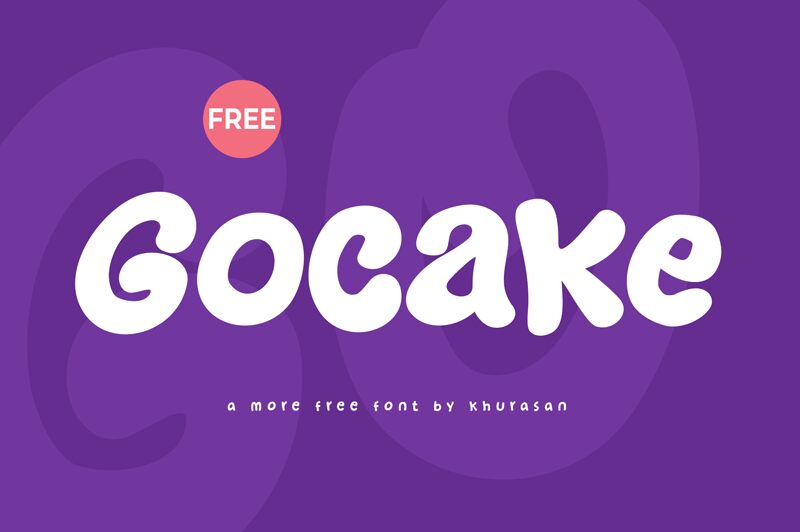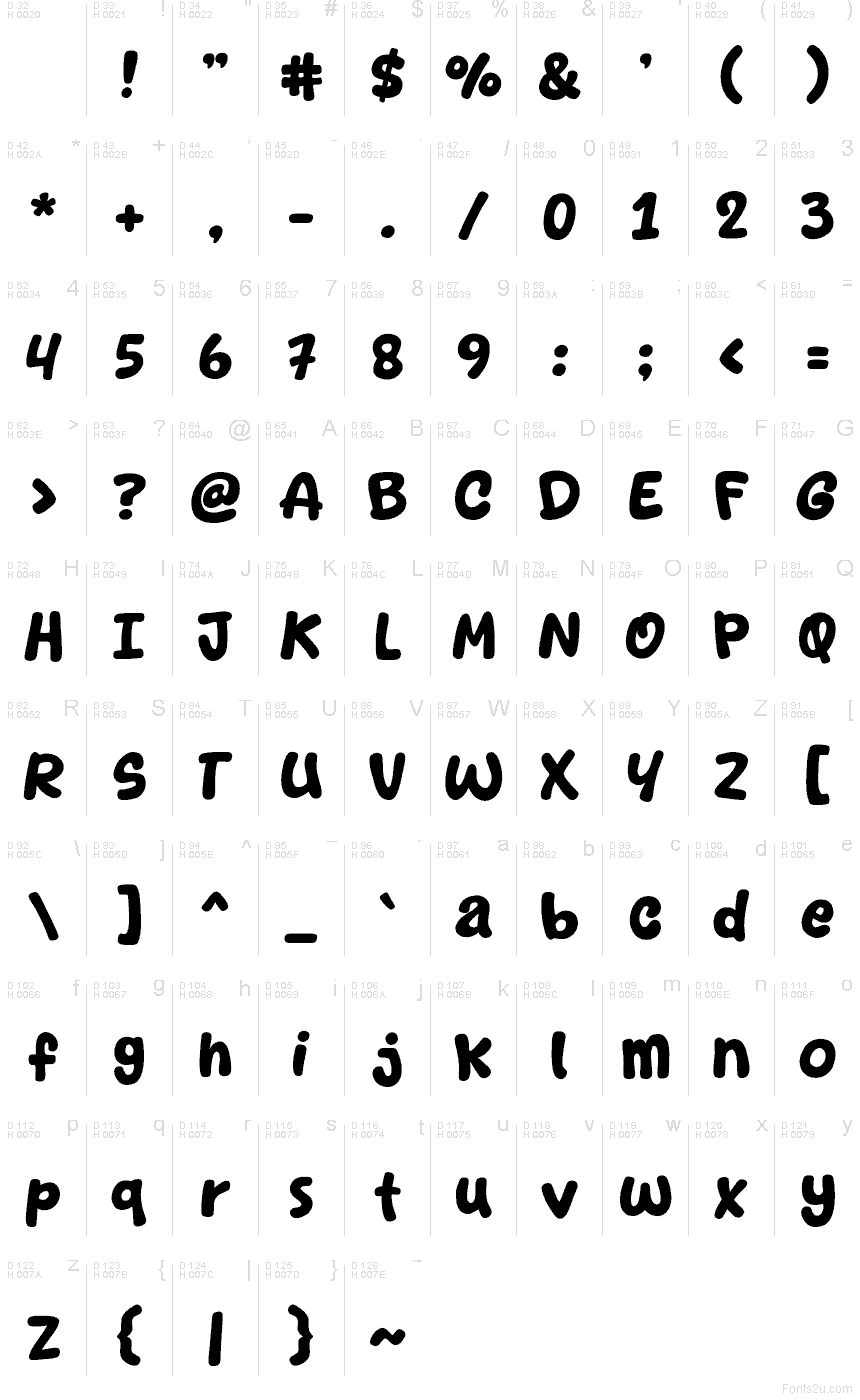
Gocake by Khurasan is a free cartoon display font with chunky, softly rounded letters and a lively hand-shaped rhythm. Bulging curves, pinched joins, and playful irregularities give the lettering a gooey, cake-icing character without relying on extra ornament.
This free font suits playful logos, snack packaging, party posters, sticker designs, social graphics, and animated title cards. Its broad shapes and bouncing forms work best in short headlines or brand names, where the uneven silhouettes can carry the mood without competing with longer text.